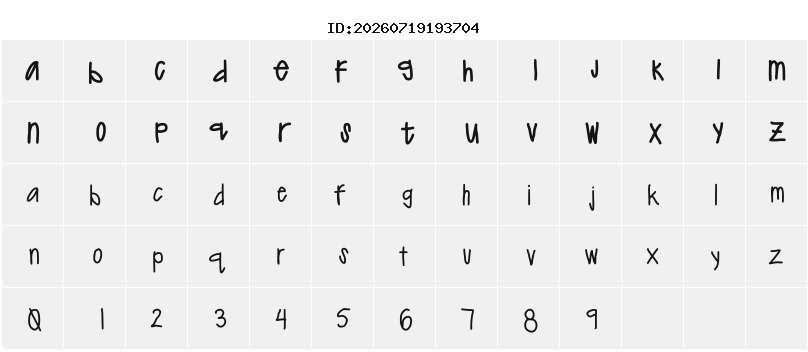
erinregular Preview
• Font Name: erinregular
• Full Font Name: erinregular
• PostScript Name: erinregular
About erinregular.ttf
erinregular.ttf is a modern, elegant sans-serif font designed for ultimate readability and visual harmony. Perfect for branding, headlines, web design, and print materials.